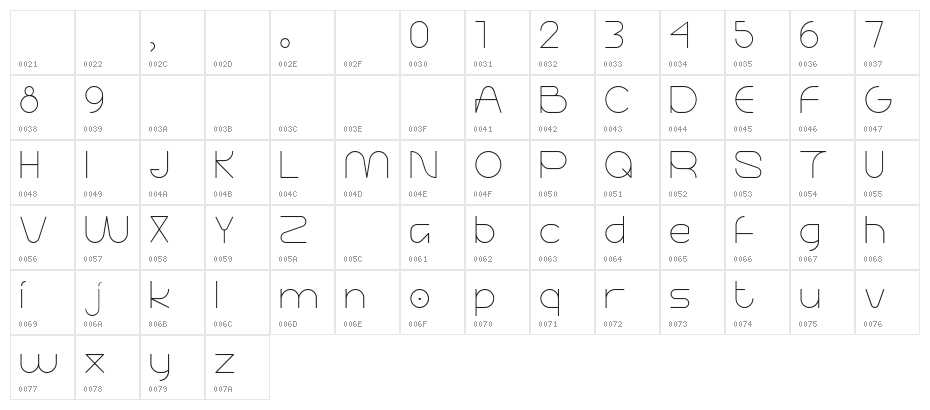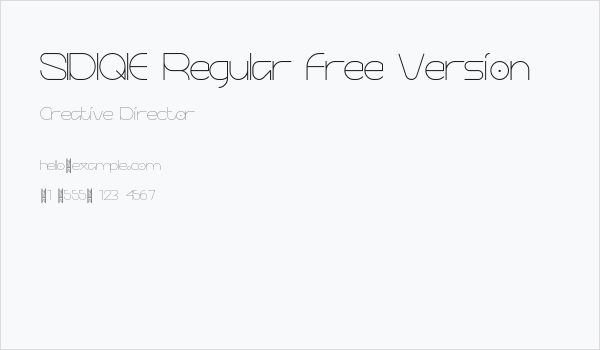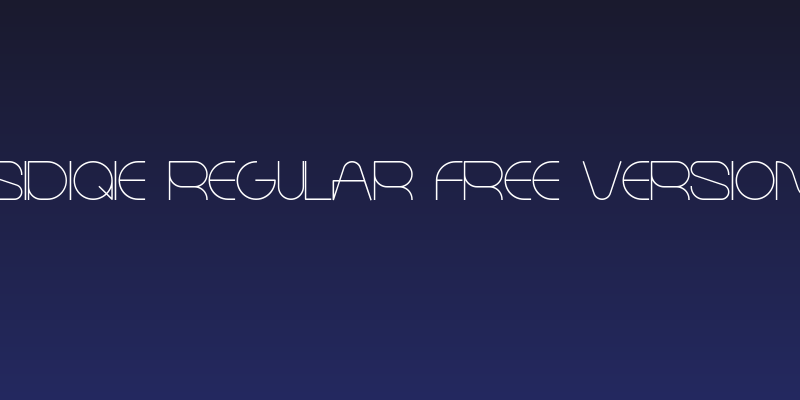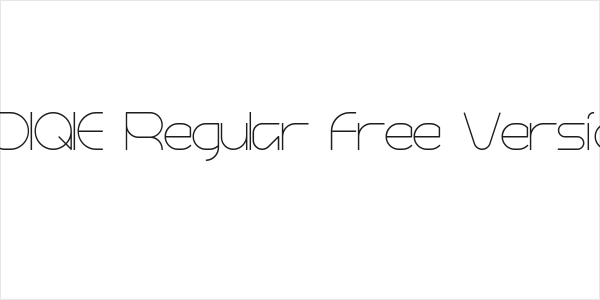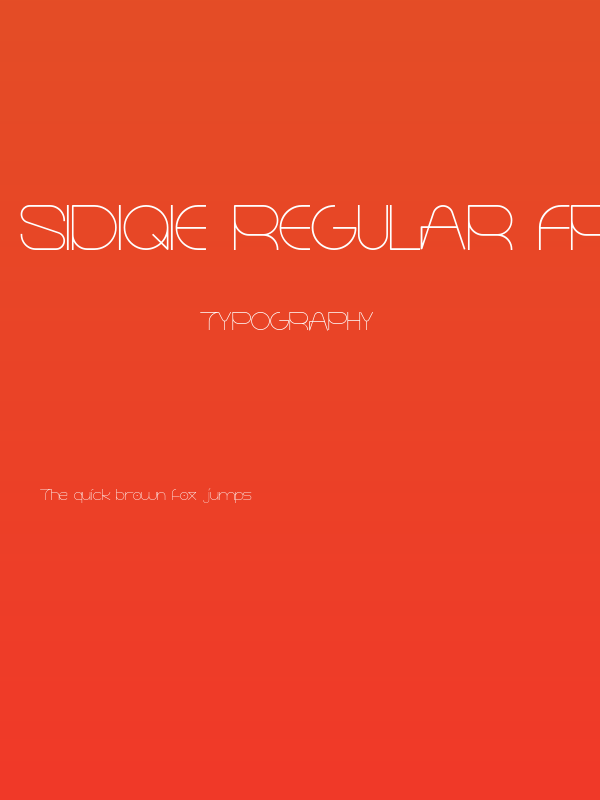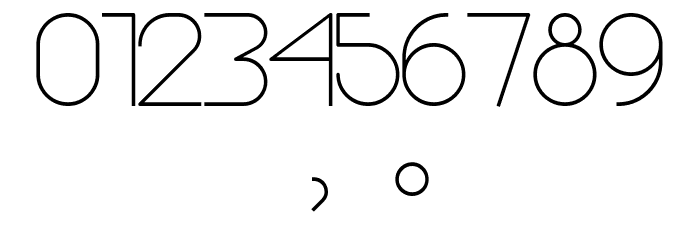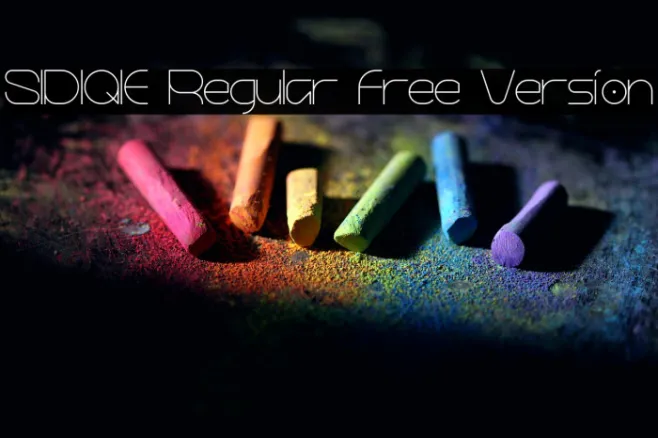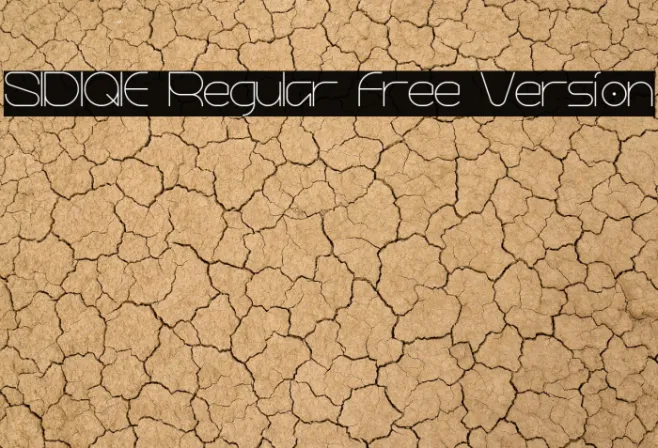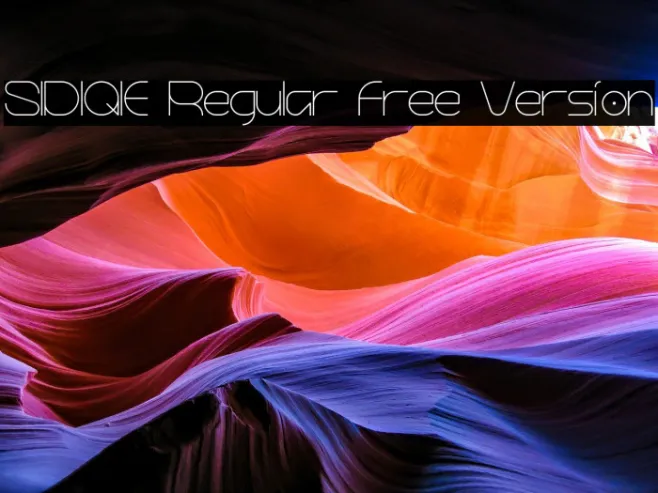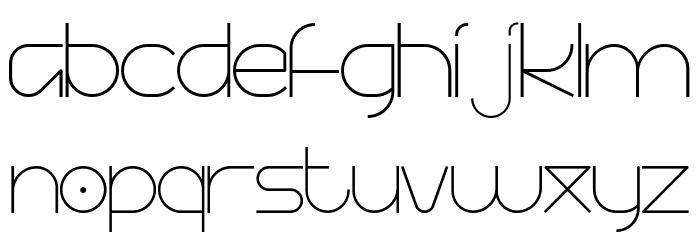
SIDIQIE Regular Free Version Font
SIDIQIE Regular Free Version Description
This font features a modern and minimalist design with a geometric structure. The characters are composed of thin, uniform lines that create a sleek and futuristic appearance. The uppercase letters have a distinct, angular style with rounded edges, while the lowercase letters maintain a consistent flow with subtle curves. The numerals are designed to match the overall aesthetic, offering a cohesive look across all characters. The font's clean lines and open forms make it highly legible, even at smaller sizes. Its unique style is well-suited for contemporary design projects, providing a fresh and innovative touch.
| Use Case | Logos, Headlines, Digital interfaces |
| Proposed Projects | Ideal for tech branding, modern logos, minimalist posters, and digital interfaces. |